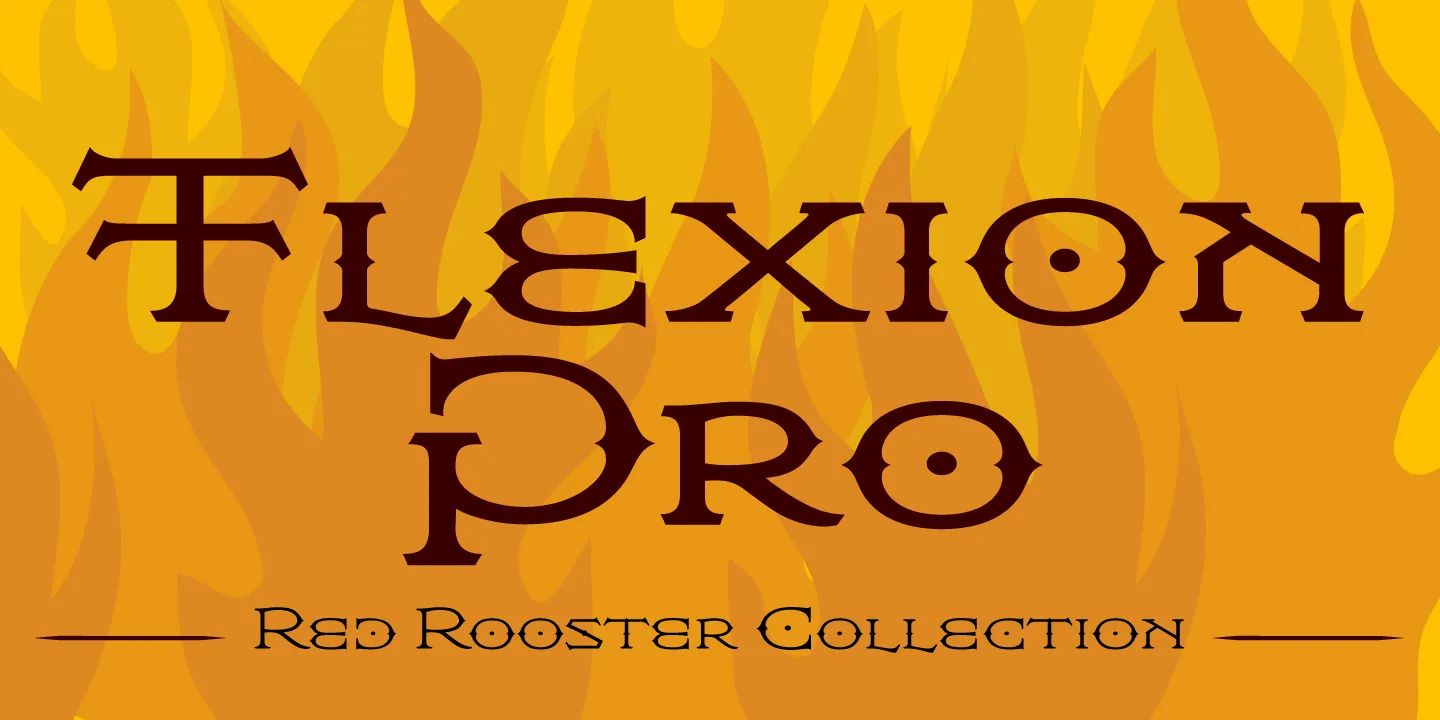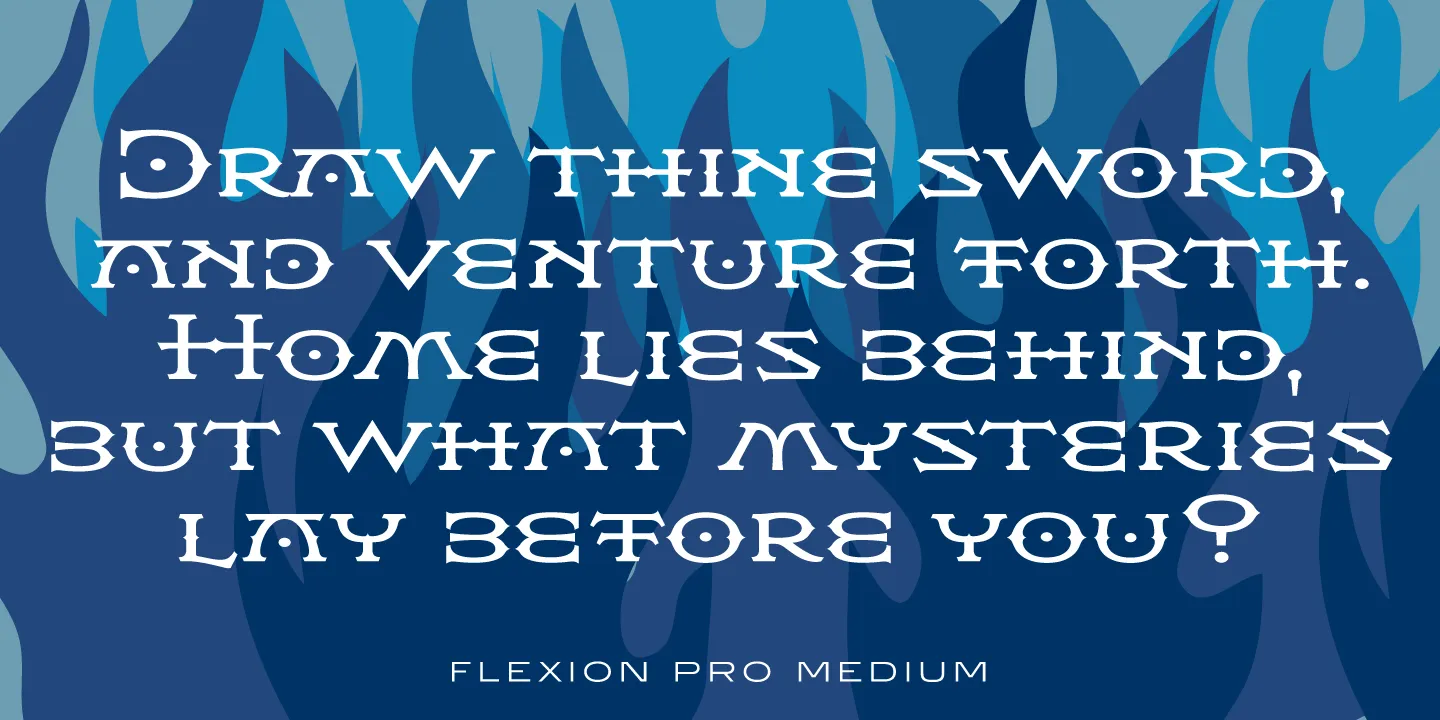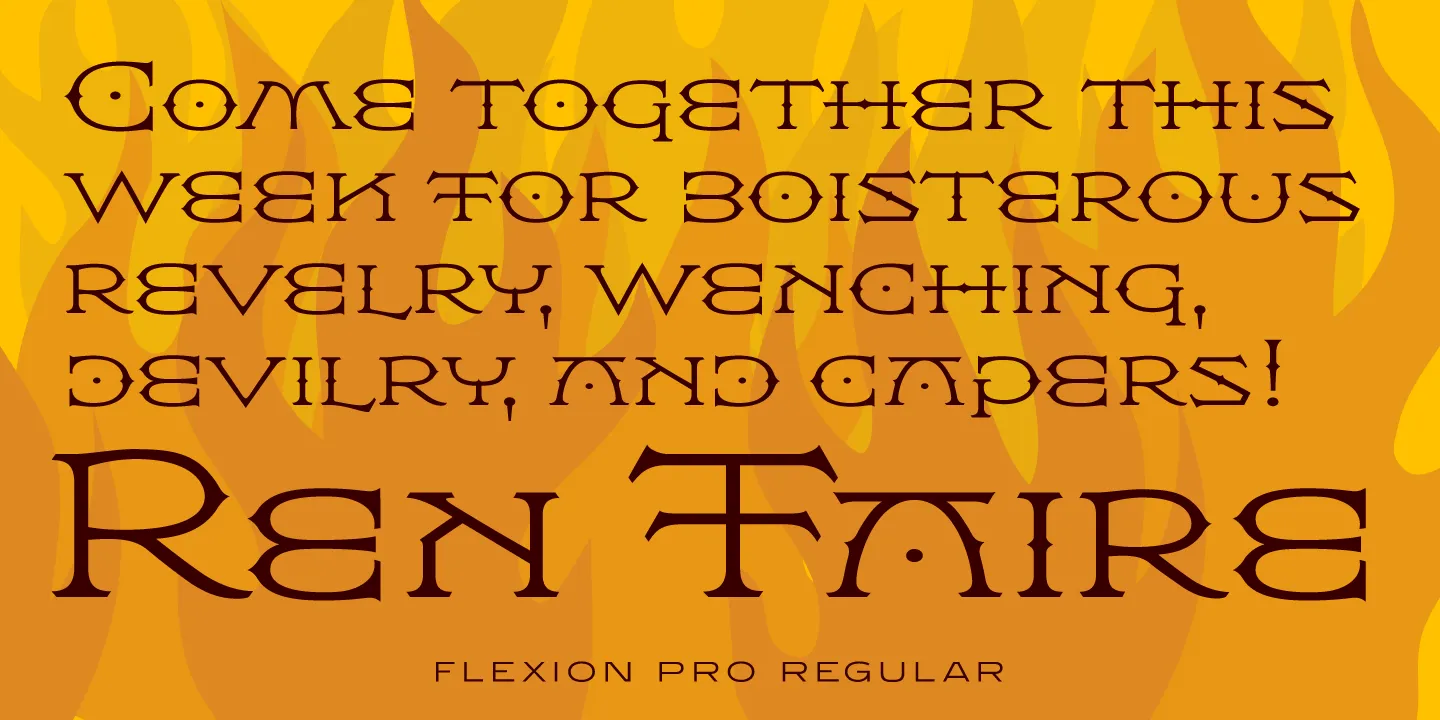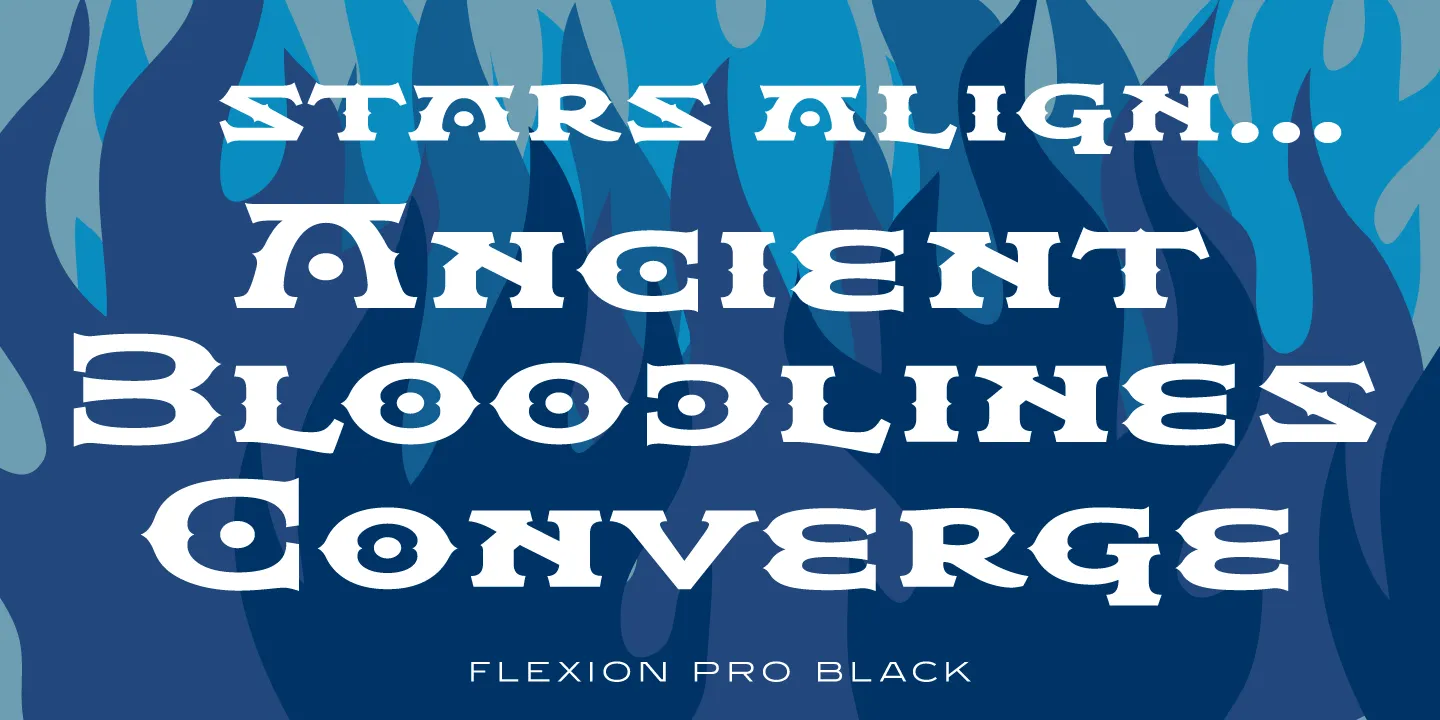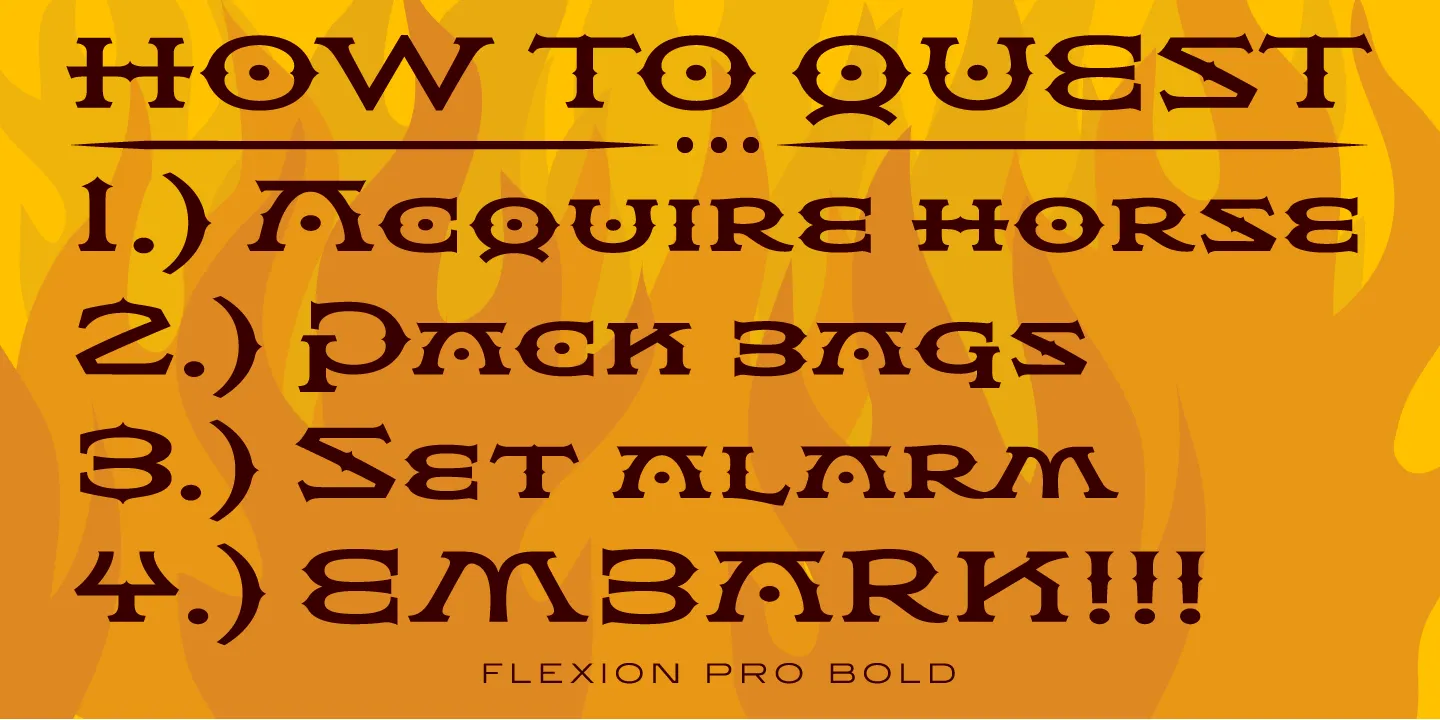
Flexion Font Family
Flexion is a decorative font family. Designed by Hal Taylor and John Langdon and produced by Steve Jackaman and Ashley Muir. While working on the movie adaptation of “Angels and Demons,” Dan Brown approached Langdon with the idea of creating title credits based on ambigrams. The film ended up being too long, but Langdon decided to release it instead of shelving the family. Flexion is reminiscent of branding irons and could easily be used to create strongly imaginative identities.
OpenType Features
• Common Ligatures
• Discretionary Ligatures
• Fractions
• Lining Numerals
• Old Style Numerals
• Ordinal Numerals
• Stylistic Alternates
• Superscript